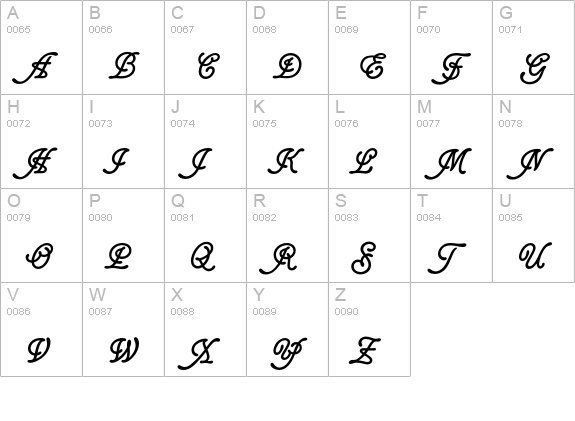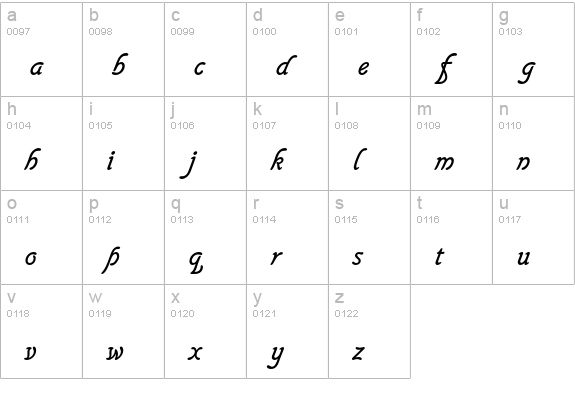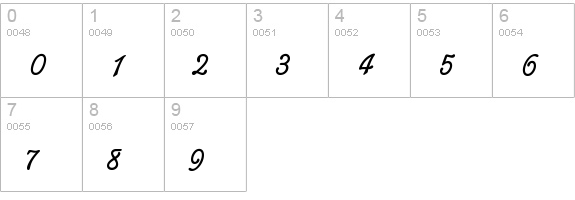
Glastonbury Std Font Details
Glastonbury Std is a charming and elegant font that exudes a sense of vintage sophistication. Its intricate details and unique flourishes make it perfect for adding a touch of class to any design project. With its timeless appeal, Glastonbury Std is versatile and suitable for a wide range of applications, from invitations to branding to packaging. What sets Glastonbury Std apart is that it is not only visually appealing, but also free to download. Yes, you read that right - this exquisite font is freely available to download at FontsMarket.com. So go ahead and enhance your projects with the beauty and elegance of Glastonbury Std today!